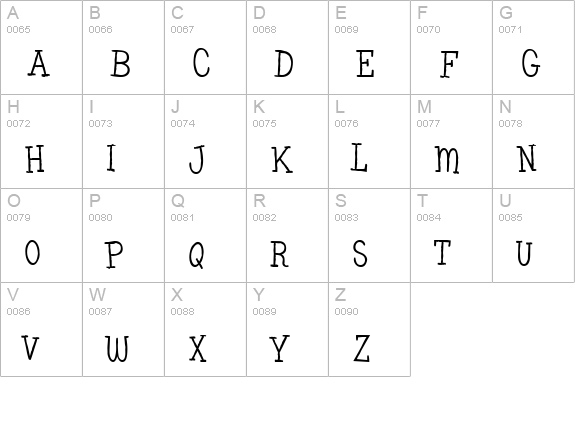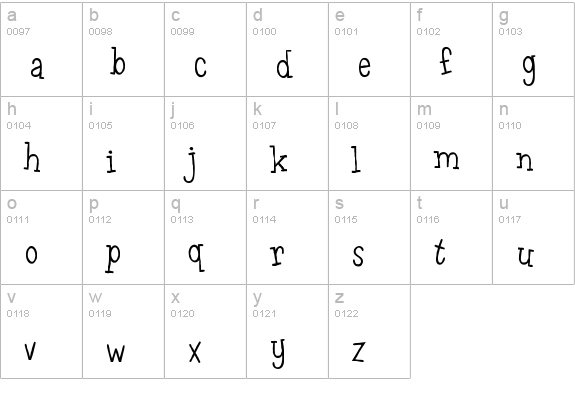
Leftovers Font Details
Introducing Leftovers, a delightful and versatile font that brings a touch of whimsy to your designs. With its playful curves and lively strokes, this typeface is perfect for adding a dash of personality to any project. Whether you're working on a logo, a poster, or even a greeting card, Leftovers is sure to make a lasting impression. What makes Leftovers truly special is that it is not only aesthetically pleasing, but it is also freely available to download at FontsMarket.com. Yes, you heard it right! This incredible font can be yours at no cost, allowing you to unleash your creativity without any limitations. Designed with attention to detail, every character in Leftovers is carefully crafted to ensure a seamless and visually pleasing reading experience. Its bold and distinct letterforms make it highly legible, even at smaller sizes, making it suitable for a wide range of applications. Leftovers is not just about the letters; it also includes a variety of punctuation marks, numerals, and special characters, making it a versatile choice for all your design needs. Whether you're aiming for a modern and edgy look or a more playful and whimsical style, Leftovers has got you covered. So, why wait? Start exploring the endless possibilities of Leftovers today. Download this incredible font for free at FontsMarket.com and let your creativity soar to new heights. With Leftovers in your design toolkit, you'll have the power to create eye-catching and captivating designs that leave a lasting impression. Don't miss out on this amazing opportunity to enhance your projects with a font that is sure to make a statement. Get your hands on Leftovers now and let your imagination run wild!